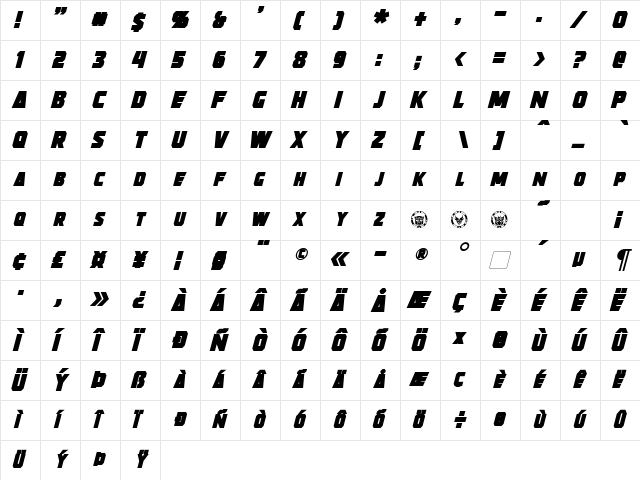
Strongarm Bold Italic
Design Context for Strongarm Typeface
Strongarm is a composed and adaptable typeface that performs quietly and consistently across a wide range of design contexts. The slanted form adds forward momentum and visual energy. The heavy weight commands attention and anchors typographic hierarchies.
Pro Tip: Try Strongarm for annotation and caption copy alongside an upright companion — the contrast in angle creates a dynamic but ordered typographic system.